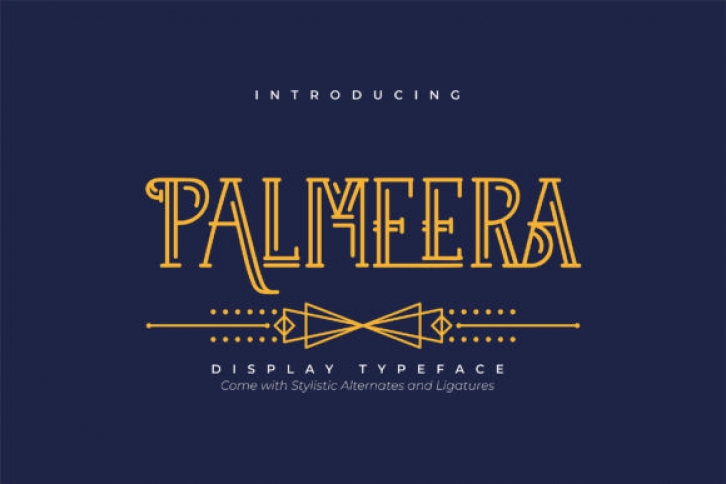
Palmeera is a sophisticated serif font. It features a beautiful look that will take your designs to the next level. Use it for greeting cards, branding materials, business cards, quotes, posters, and more!